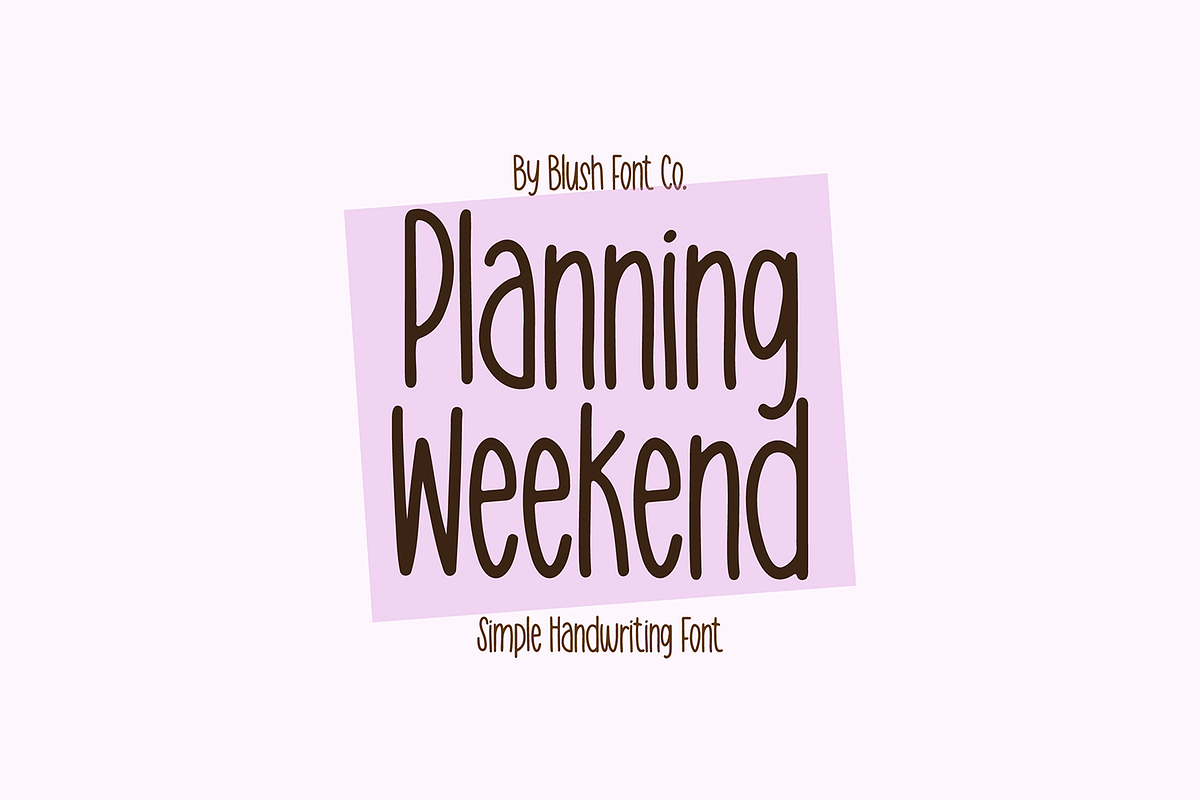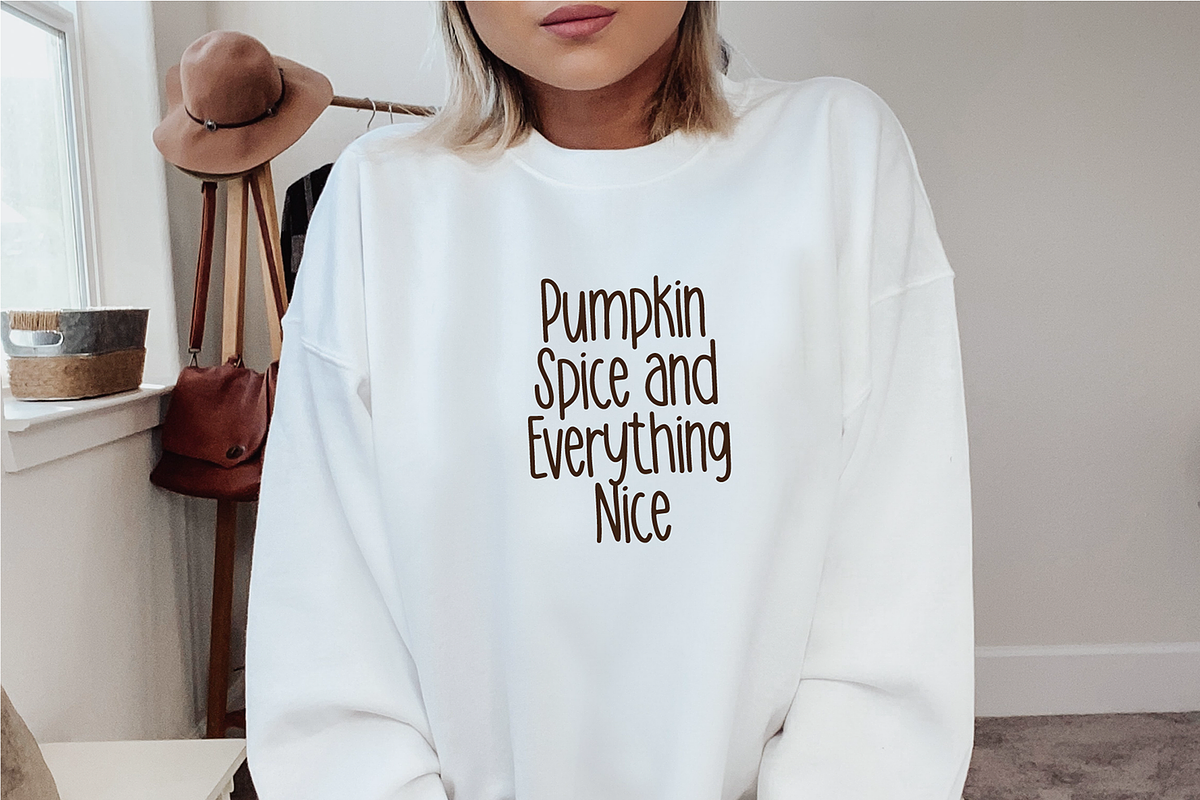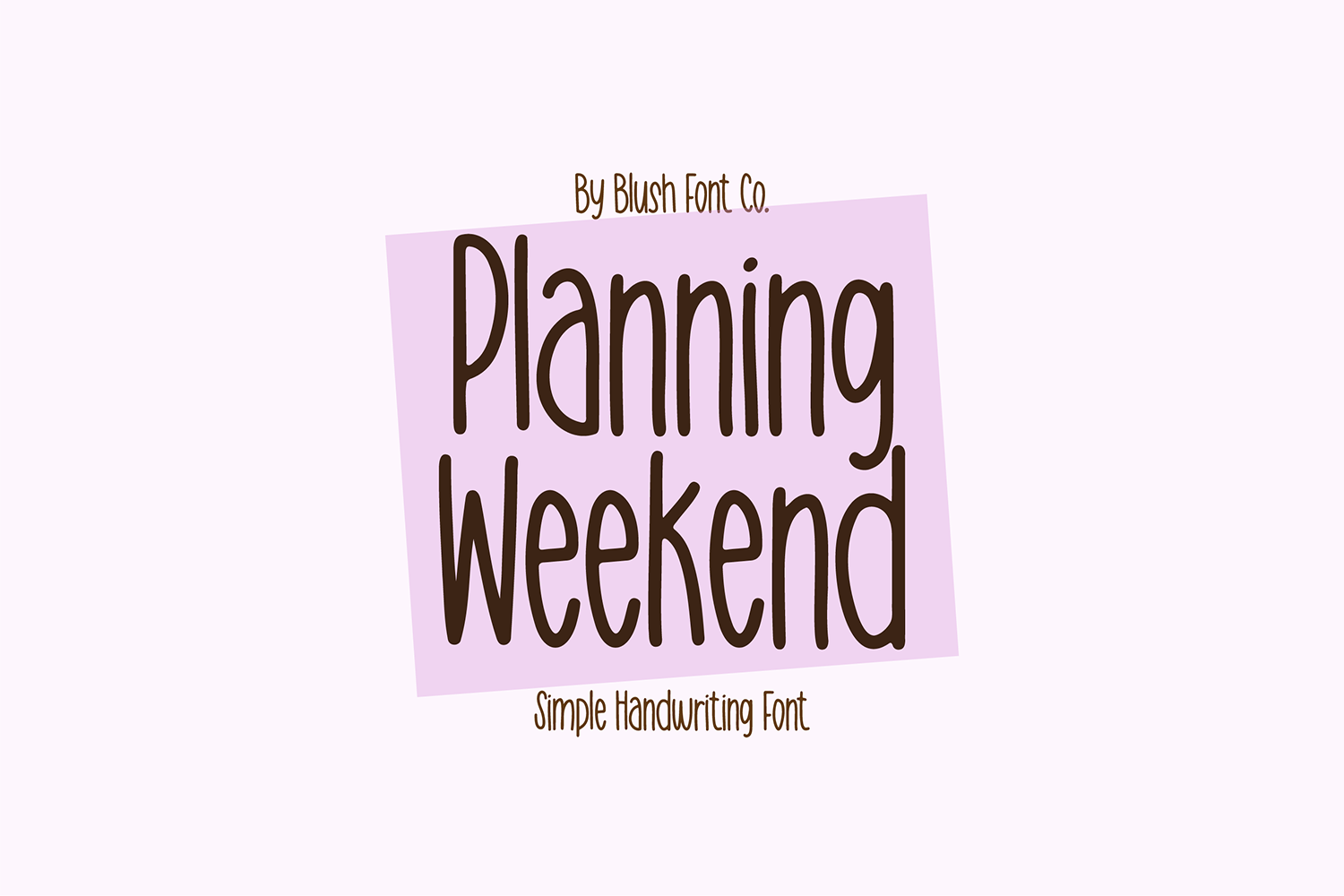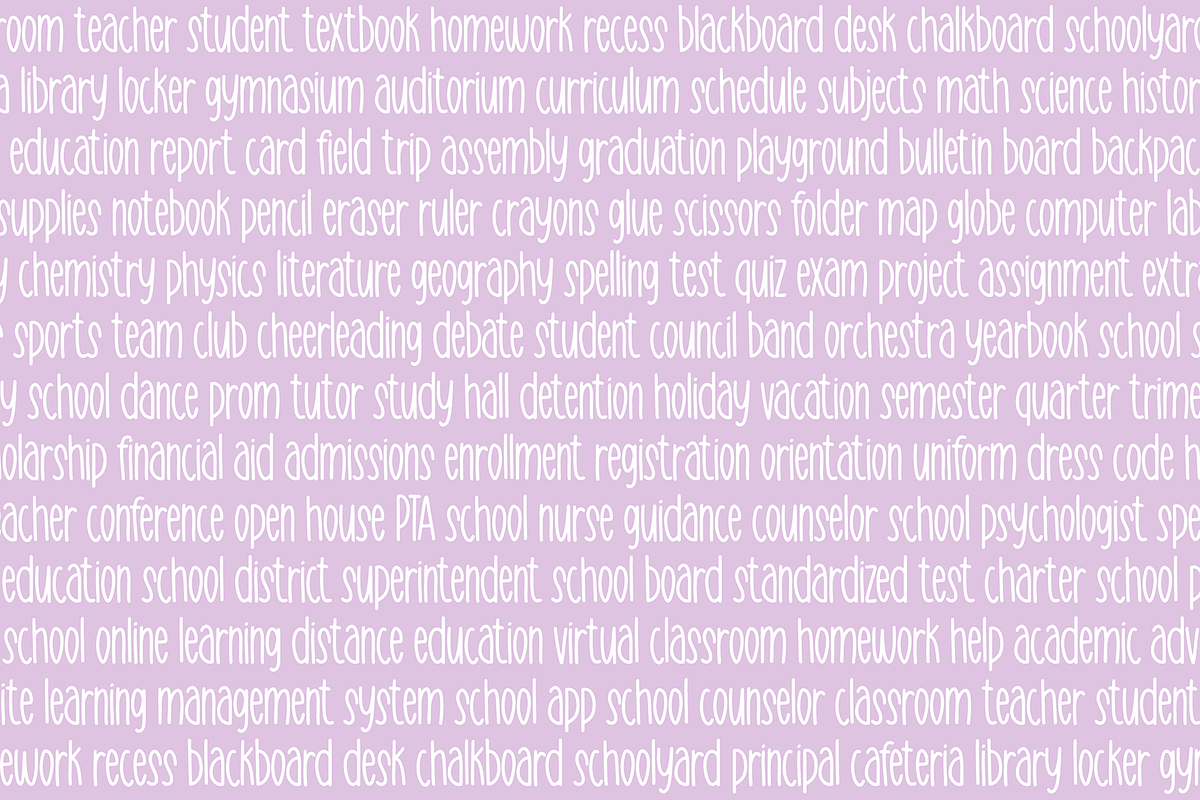
PLANNING WEEKEND Handwriting Font
Planning Weekend Tall and simple handwriting font.
This handwritten font is perfect for goodnotes, invitations, crafts, and more!